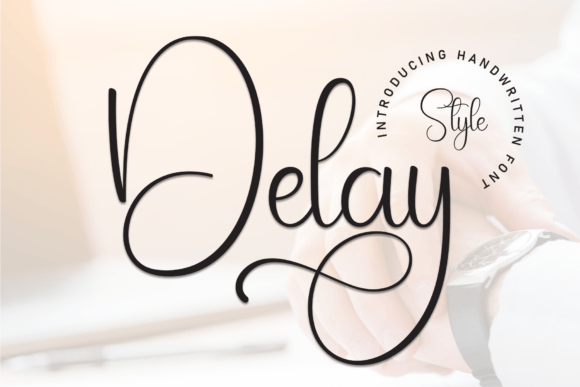
Introducing Delay Font: Elevate Your Designs with Elegance and Sophistication
In the world of typography, fonts play a crucial role in conveying the tone and personality of a design. When it comes to creating visually stunning and elegant designs, the right font can make all the difference. This is where Delay Font comes in – a stylish and incredibly elegant script font that can add a touch of sophistication to any design project. In this article, we’ll explore the features and benefits of Delay Font, and how it can be used to create beautiful designs for various applications.
What is Delay Font?
Delay Font is a modern script font that boasts a high level of elegance and refinement. Its stylish and fluid strokes make it perfect for designs that require a handwritten touch. The font’s unique characteristics, such as its subtle connections and flowing lines, give it a distinctive look that sets it apart from other script fonts.
Key Features of Delay Font
- Elegant and Refined: Delay Font features a sophisticated and elegant design, making it ideal for high-end designs.
- Stylish and Fluid Strokes: The font’s fluid strokes and subtle connections give it a smooth and refined appearance.
- Handwritten Touch: Delay Font has a distinct handwritten feel, making it perfect for designs that require a personal touch.
- Versatile: The font can be used for a wide range of design applications, from wedding invitations to business cards.
Uses of Delay Font
Delay Font is an incredibly versatile font that can be used for various design applications. Here are some of the most popular uses of the font:
Wedding Invitations
Delay Font is an excellent choice for wedding invitations, as it adds a touch of elegance and sophistication to the design. The font’s refined appearance makes it perfect for formal wedding invitations, while its handwritten feel adds a personal touch.
Thank You Cards
Thank you cards are a great way to express gratitude, and Delay Font can help make them even more special. The font’s elegant design and fluid strokes make it ideal for creating beautiful and heartfelt thank you cards.
Quotes and Greeting Cards
Delay Font is also perfect for quotes and greeting cards, as it adds a touch of elegance and sophistication to the design. The font’s refined appearance makes it ideal for creating inspirational quotes, while its handwritten feel adds a personal touch to greeting cards.
Logos and Business Cards
Delay Font can also be used for logos and business cards, as it adds a touch of professionalism and elegance to the design. The font’s refined appearance makes it perfect for corporate designs, while its handwritten feel adds a personal touch.
Benefits of Using Delay Font
There are several benefits to using Delay Font for your design projects. Here are some of the most significant advantages:
Elegance and Sophistication
Delay Font adds a touch of elegance and sophistication to any design project, making it perfect for high-end designs.
Versatility
The font’s versatility makes it suitable for a wide range of design applications, from wedding invitations to business cards.
Unique and Distinctive
Delay Font has a unique and distinctive appearance that sets it apart from other script fonts, making it perfect for designers who want to create something truly special.
Tips for Using Delay Font
Here are some tips for using Delay Font effectively in your design projects:
Pair it with Other Fonts
Delay Font can be paired with other fonts to create a unique and visually appealing design. Try pairing it with a sans-serif font for a contrasting look.
Use it for Headlines and Titles
Delay Font is perfect for headlines and titles, as it adds a touch of elegance and sophistication to the design.
Experiment with Colors and Textures
Delay Font can be used with a variety of colors and textures to create a unique and visually appealing design. Experiment with different colors and textures to find the perfect combination for your project.
In conclusion, Delay Font is a stylish and incredibly elegant script font that can add a touch of sophistication to any design project. Its versatility, unique appearance, and refined strokes make it perfect for a wide range of design applications, from wedding invitations to business cards. By following the tips outlined in this article, you can use Delay Font to create beautiful and visually stunning designs that will leave a lasting impression.